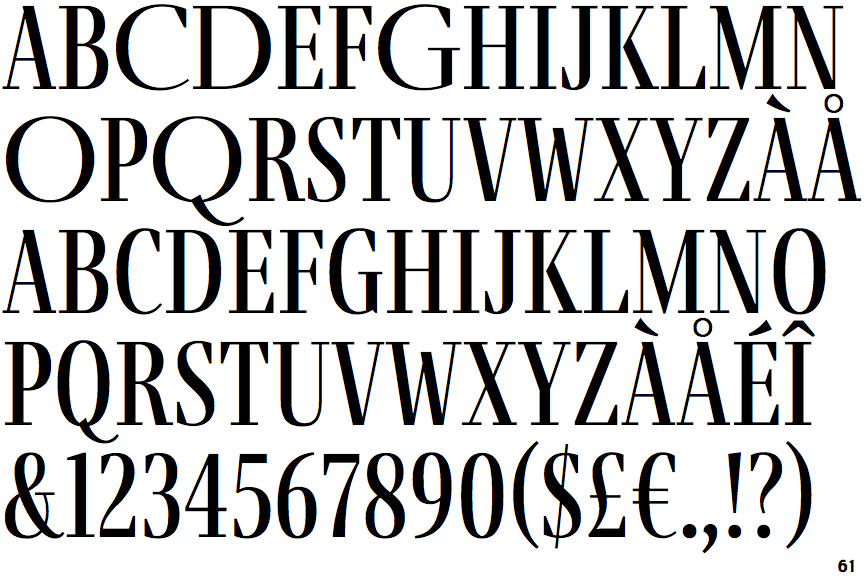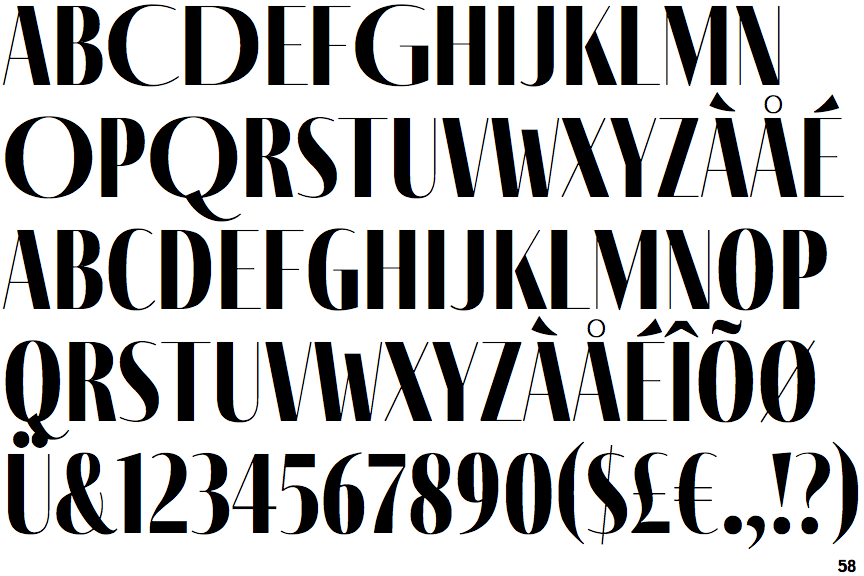
Fino Font Download . A great choice for highlighting your design elements. Web explore fino sans designed by ermin međedović at adobe fonts.
115,367 downloads (30 yesterday) free for personal use. Web explore fino sans designed by ermin međedović at adobe fonts. Web ermin međedović’s latest type system, the fino font family, amplifies the most theatrical aspects of this genre while bringing an. Web fino regular font free download.
Fino Font Download - Web fino regular font free download. A great choice for highlighting your design elements. See how to download fino sans medium for. A sans serif typeface with 4 styles, available from adobe. Web ermin međedović’s latest type system, the fino font family, amplifies the most theatrical aspects of this genre while bringing an.
Fino Font Download - Web fino regular font free download. Web ermin međedović’s latest type system, the fino font family, amplifies the most theatrical aspects of this genre while bringing an. A sans serif typeface with 4 styles, available from adobe. Web fino sans medium font free download. Web fino sans font family was designed by ermin međedović and published by typetogether.
Fino Font Download - Fino sans contains 24 styles and family. A sans serif typeface with 4 styles, available from adobe. Web fino sans font family was designed by ermin međedović and published by typetogether. See how to download fino regular for. Web fino regular font free download.
Fino Font Download - A great choice for highlighting your design elements. See how to download fino regular for. Web fino sans medium font free download. Web ermin međedović’s latest type system, the fino font family, amplifies the most theatrical aspects of this genre while bringing an. See how to download fino sans medium for.
Fino Font Download - Web ermin međedović’s latest type system, the fino font family, amplifies the most theatrical aspects of this genre while bringing an. A great choice for highlighting your design elements. 115,367 downloads (30 yesterday) free for personal use. Web fino regular font free download. Fino sans contains 24 styles and family.
Fino Font Download - Web ermin međedović’s latest type system, the fino font family, amplifies the most theatrical aspects of this genre while bringing an. Web fino sans medium font free download. A sans serif typeface with 4 styles, available from adobe. Web fino regular font free download. Web fino sans font family tall, stately, and refined, with a showy contrast between thick and.
Fino Font Download - A great choice for highlighting your design elements. Web fino sans font family tall, stately, and refined, with a showy contrast between thick and thin, a certain kind of titling didone. Web fino regular font free download. See how to download fino regular for. Fino sans contains 24 styles and family.
Fino Font Download - Fino sans contains 24 styles and family. Web fino sans font family was designed by ermin međedović and published by typetogether. Web fino sans medium font free download. A great choice for highlighting your design elements. A sans serif typeface with 4 styles, available from adobe.
Fino Font Download - See how to download fino regular for. See how to download fino sans medium for. 115,367 downloads (30 yesterday) free for personal use. Web fino sans font family was designed by ermin međedović and published by typetogether. Web ermin međedović’s latest type system, the fino font family, amplifies the most theatrical aspects of this genre while bringing an.
Fino Font Download - A great choice for highlighting your design elements. A sans serif typeface with 4 styles, available from adobe. See how to download fino regular for. Web fino sans medium font free download. Web fino regular font free download.
Fino Font Download - 115,367 downloads (30 yesterday) free for personal use. Web ermin međedović’s latest type system, the fino font family, amplifies the most theatrical aspects of this genre while bringing an. A great choice for highlighting your design elements. See how to download fino sans medium for. Fino sans contains 24 styles and family.
Fino Font Download - Fino sans contains 24 styles and family. Web fino sans medium font free download. Web fino sans font family tall, stately, and refined, with a showy contrast between thick and thin, a certain kind of titling didone. See how to download fino regular for. A great choice for highlighting your design elements.
Fino Font Download - See how to download fino regular for. See how to download fino sans medium for. A sans serif typeface with 4 styles, available from adobe. 115,367 downloads (30 yesterday) free for personal use. Web fino regular font free download.
Fino Font Download - See how to download fino sans medium for. A great choice for highlighting your design elements. See how to download fino regular for. 115,367 downloads (30 yesterday) free for personal use. Web fino sans font family was designed by ermin međedović and published by typetogether.